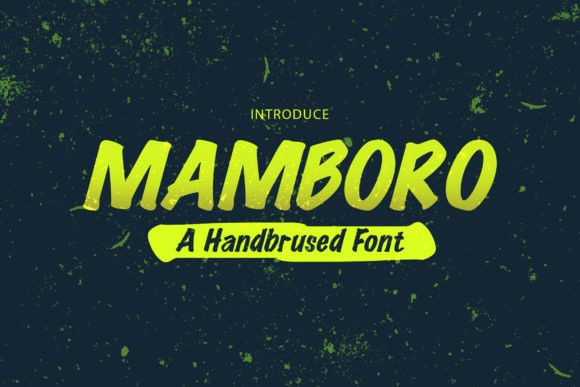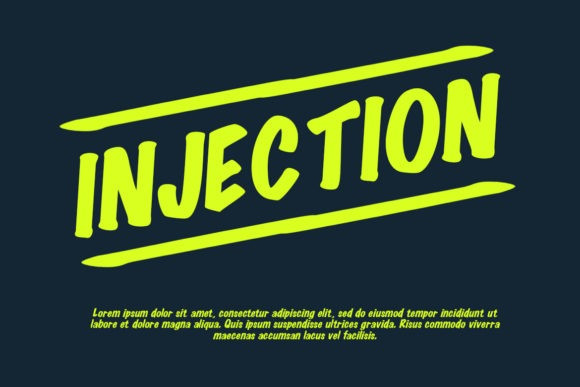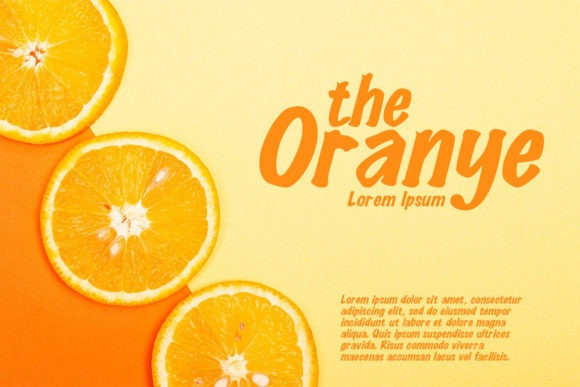
Mamboro Font
Mamboro is a Unique Hand brushed Typeface. This cool and simple font can easily become your favorite. It can be used for books, magazines, social media posts, invitations, and so much more! So add this to your creations and take your designs to the next level!